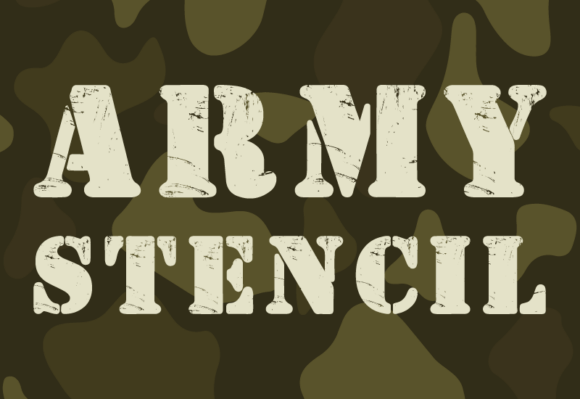
Unlocking the Boldness of Army Stencil Font
I’ll never forget the design project that led me to discover the Army Stencil font. I was working on a branding project for a gaming company, and I needed a font that could convey a sense of boldness and edginess. After hours of scouring through font libraries, I stumbled upon Army Stencil, and it was love at first sight! ✨ The font’s unique blend of grunge and military-inspired elements instantly resonated with the project’s vibe.
A Personal Review of Army Stencil
- ✨ Unique aesthetic: Army Stencil’s bold, grunge lines and weathered finish make it a standout in any design project.
- ✅ Versatility: This font can be used for a wide range of projects, from gaming and tech to military and outdoor themes.
- 💡 Attention-grabbing: Army Stencil’s distinctive style is sure to grab attention and leave a lasting impression.
While Army Stencil is an excellent font, it’s not without its quirks. 🤔 Here are a few things to keep in mind:
- ⚠️ Limited legibility: Army Stencil’s bold, grunge lines can make it difficult to read in small sizes or at a distance.
- ⚠️ Glyph limitations: While Army Stencil has a range of glyphs and stylistic alternates, it may not have every character or symbol you need.
The Backstory of Army Stencil
The story behind Army Stencil’s design is shrouded in mystery, but it’s said to have been inspired by the rugged, no-nonsense world of military communication. 💥 The font’s creator, a talented typographer, wanted to capture the essence of military-inspired design while adding a touch of grunge and edginess.